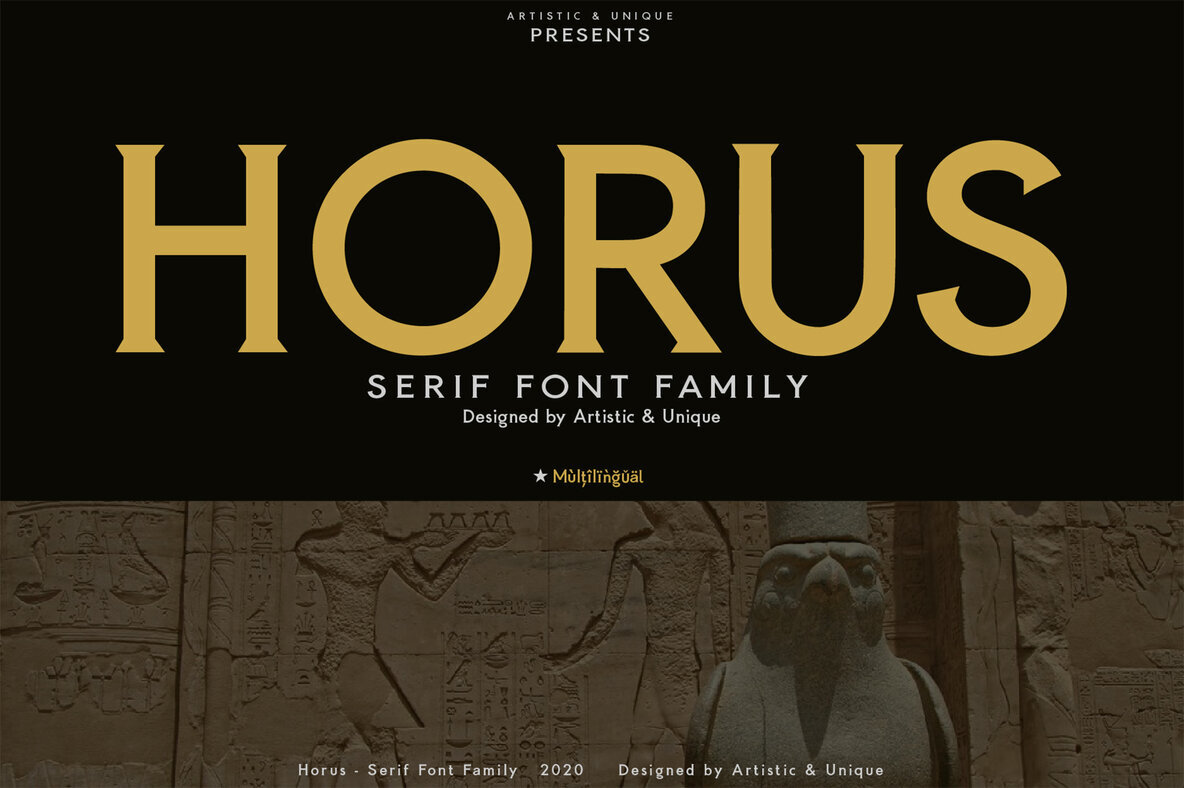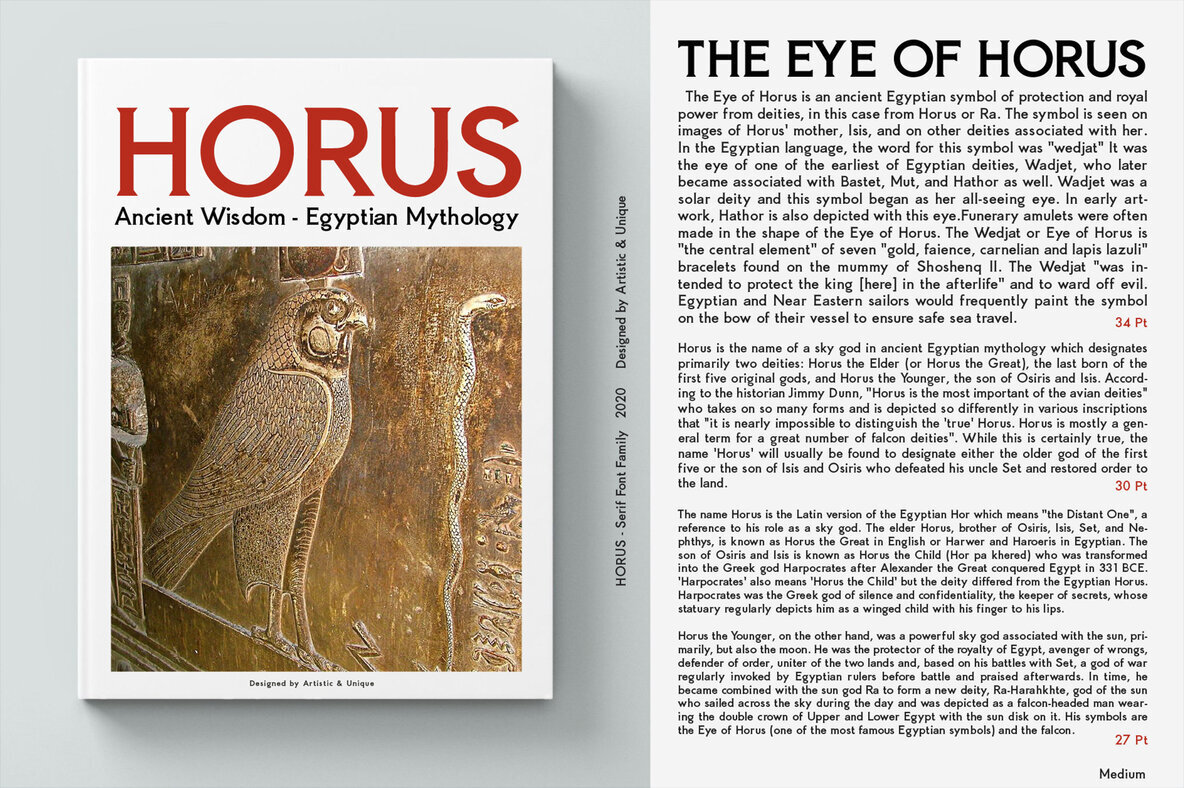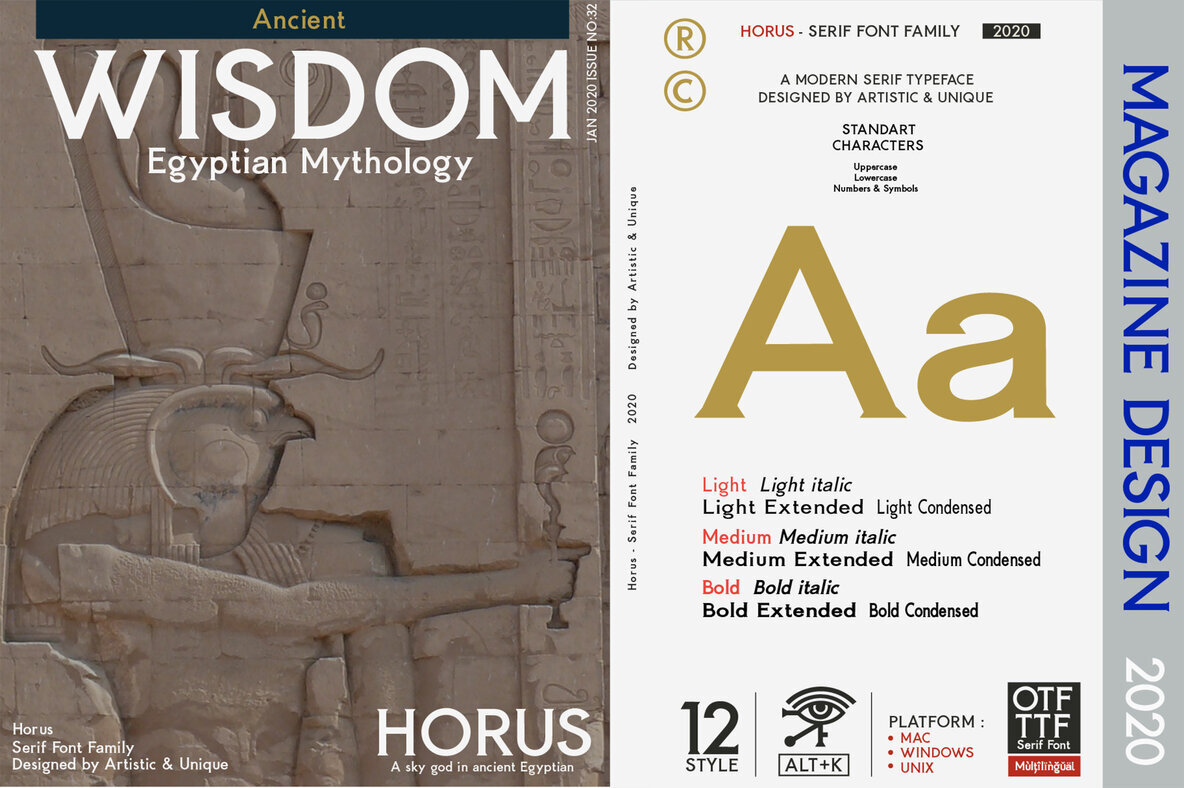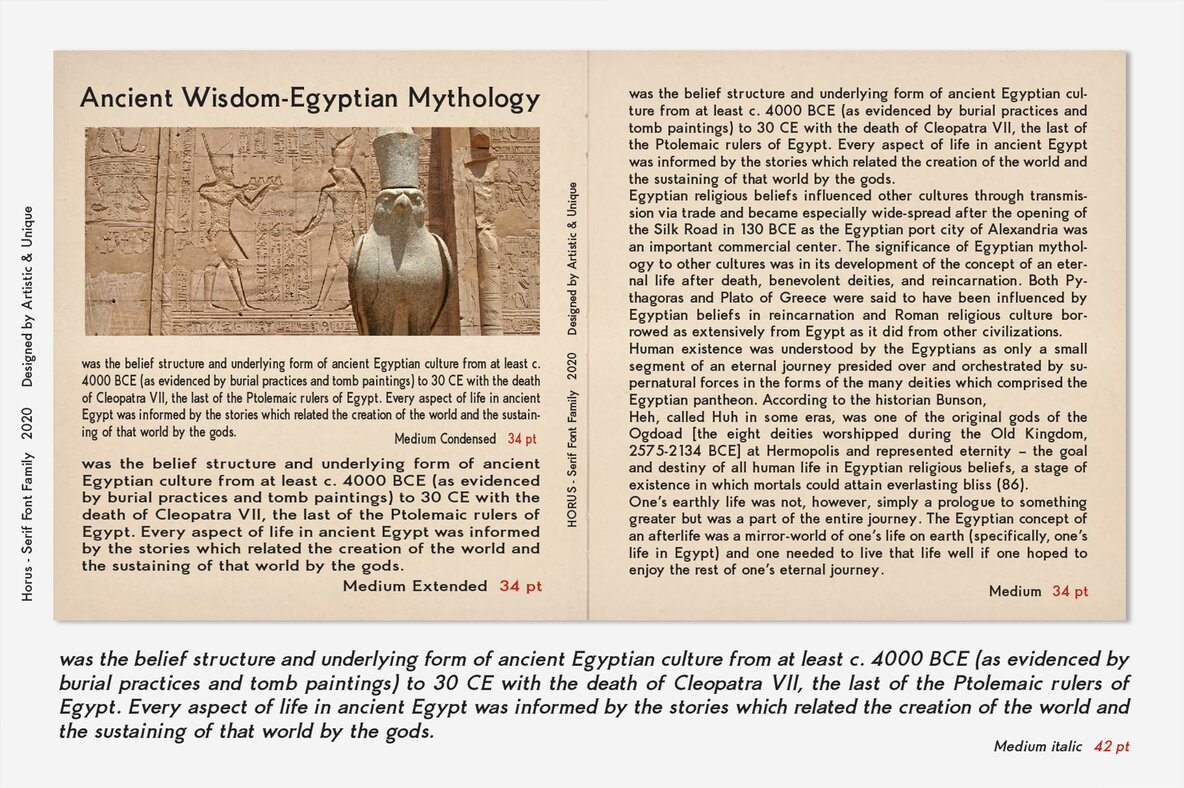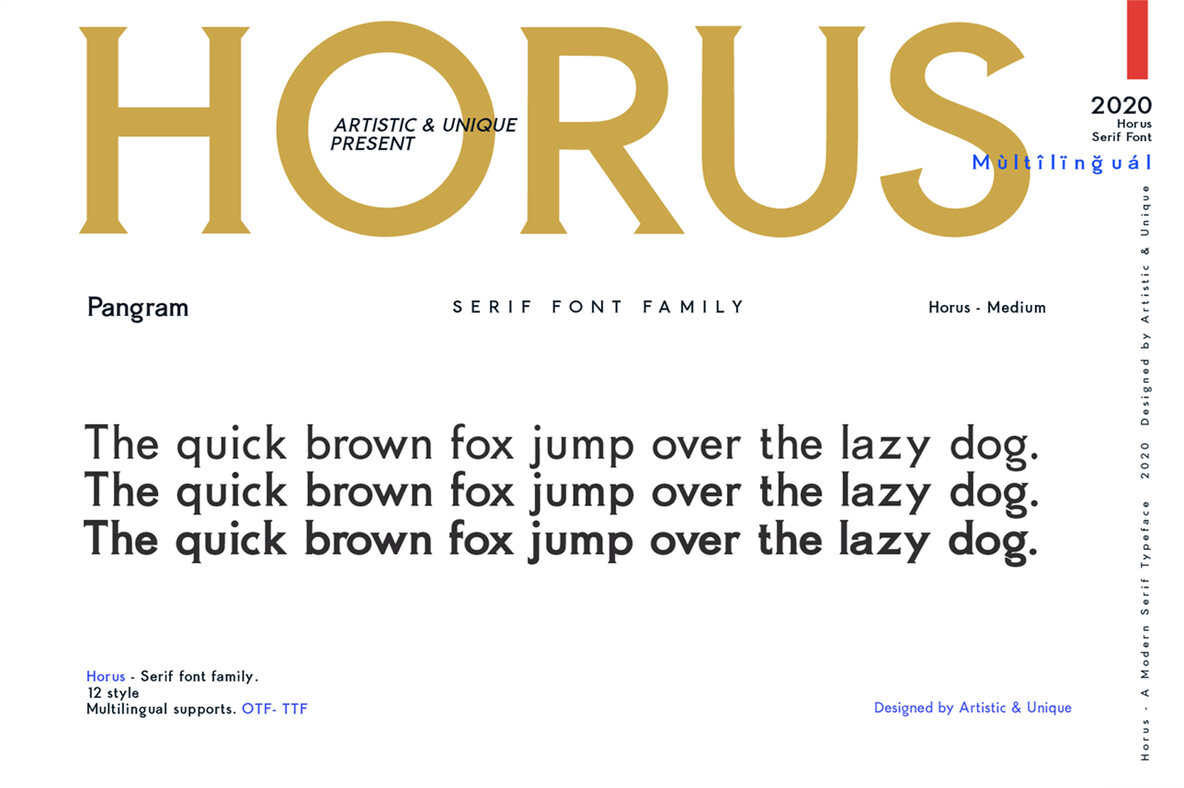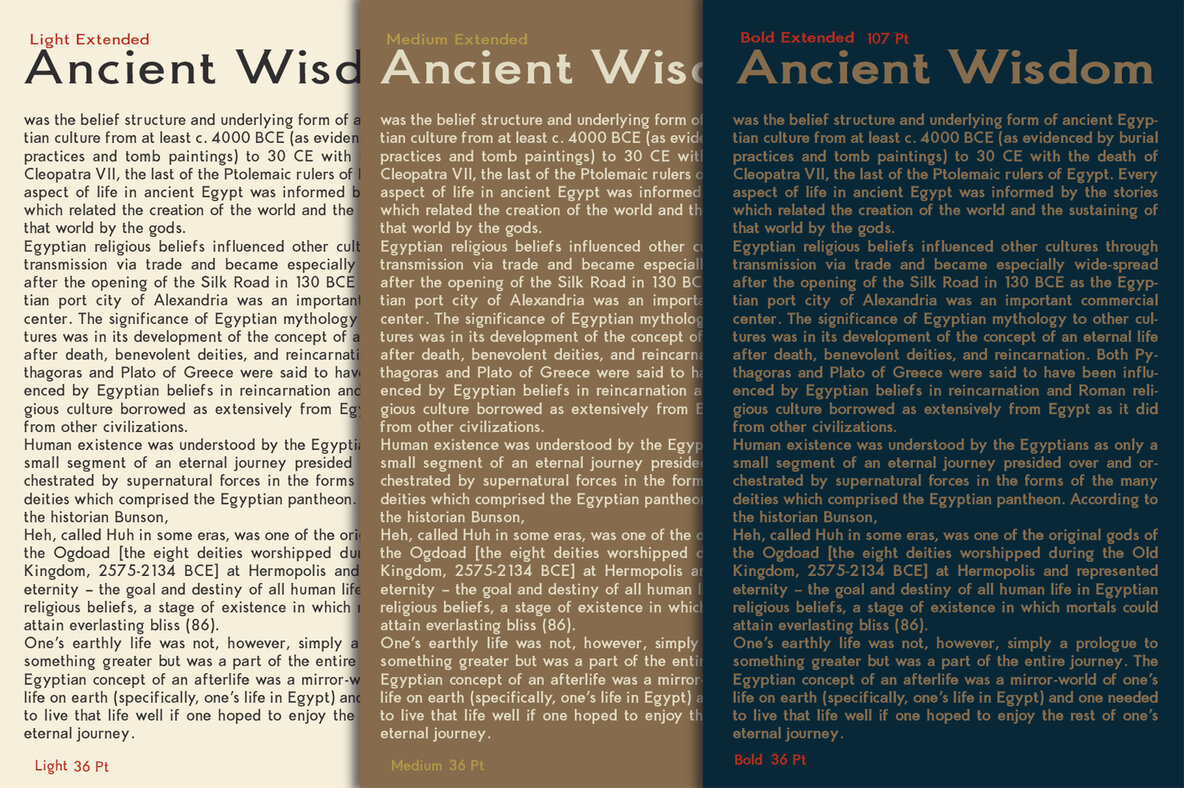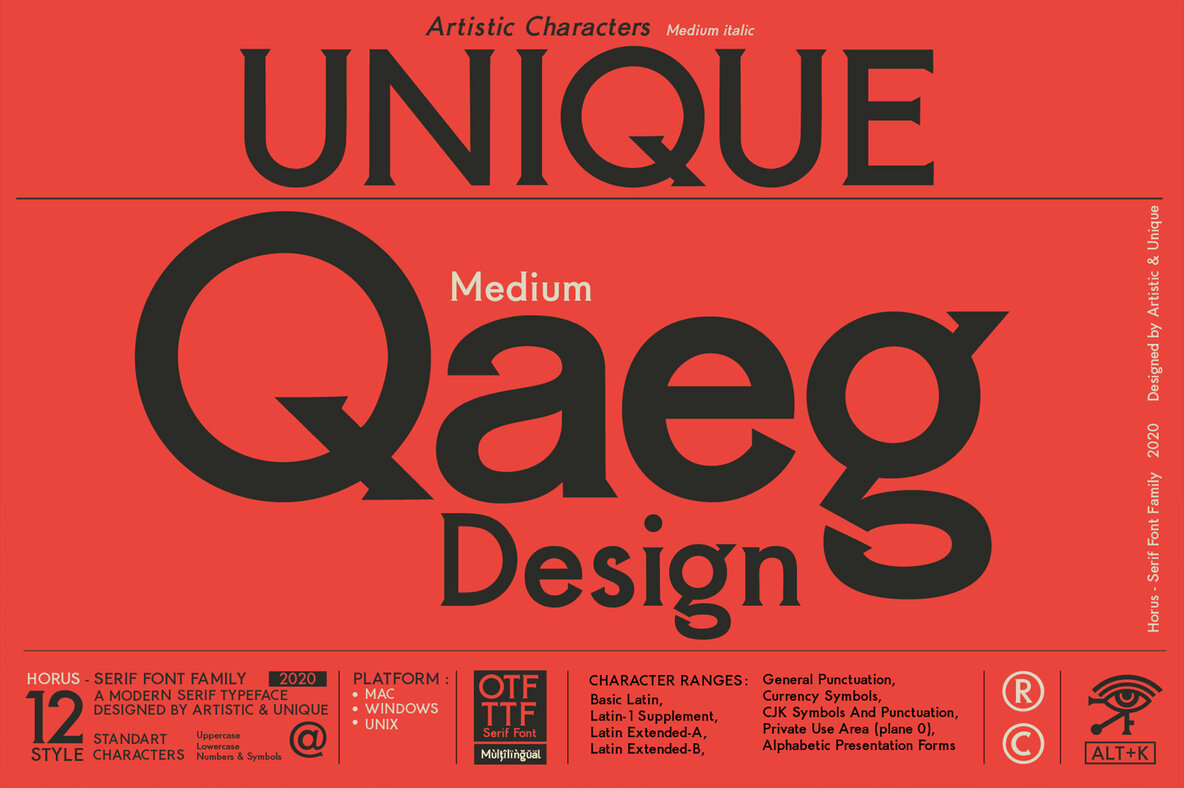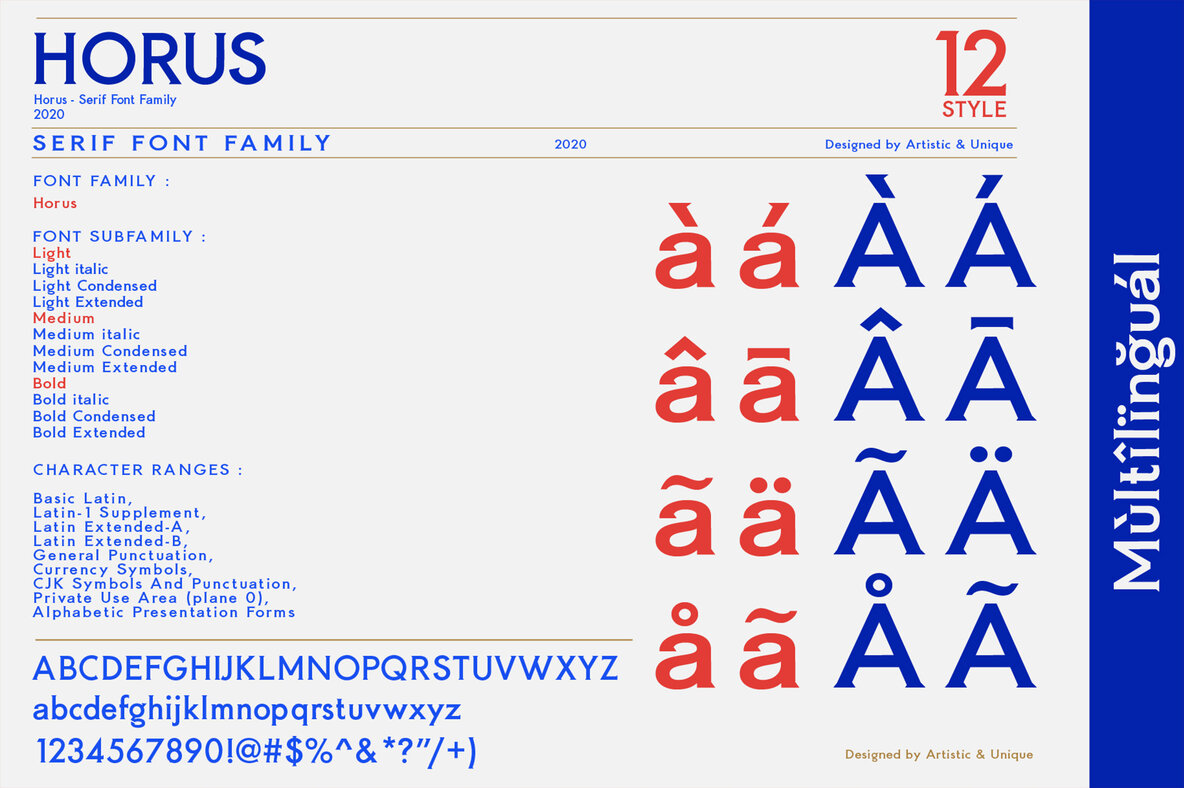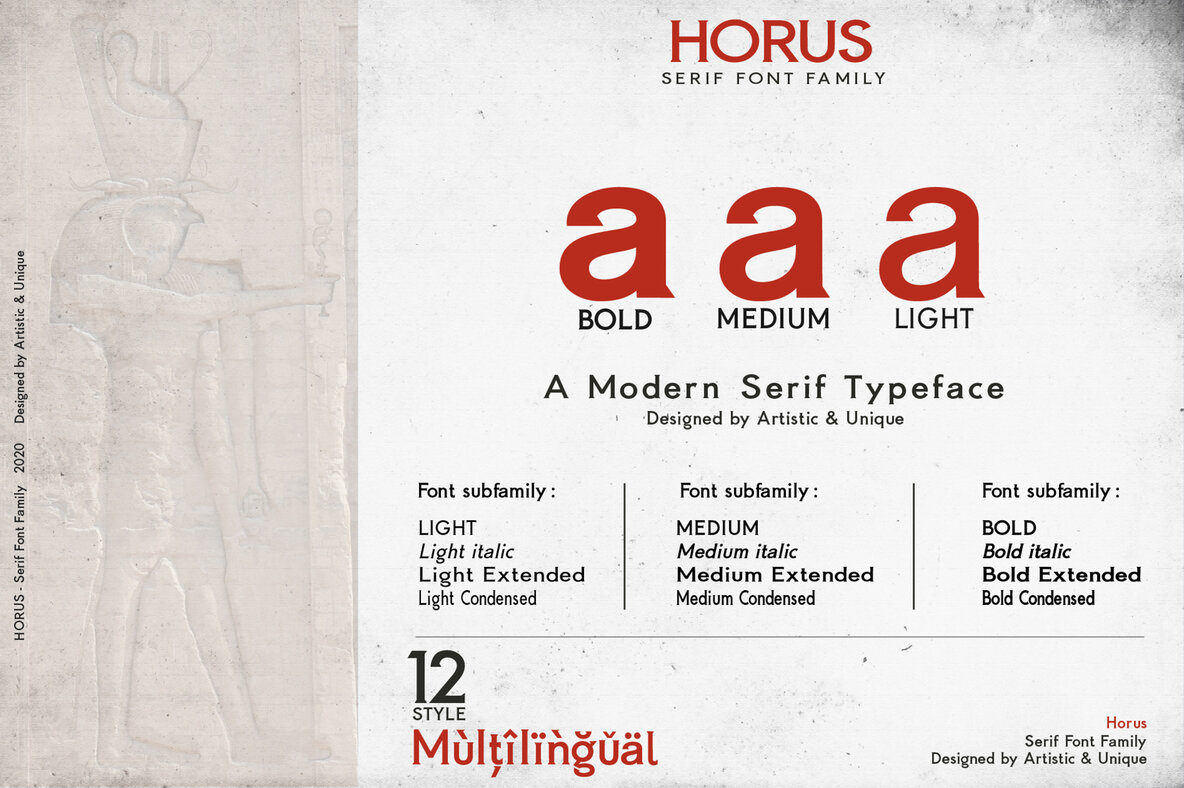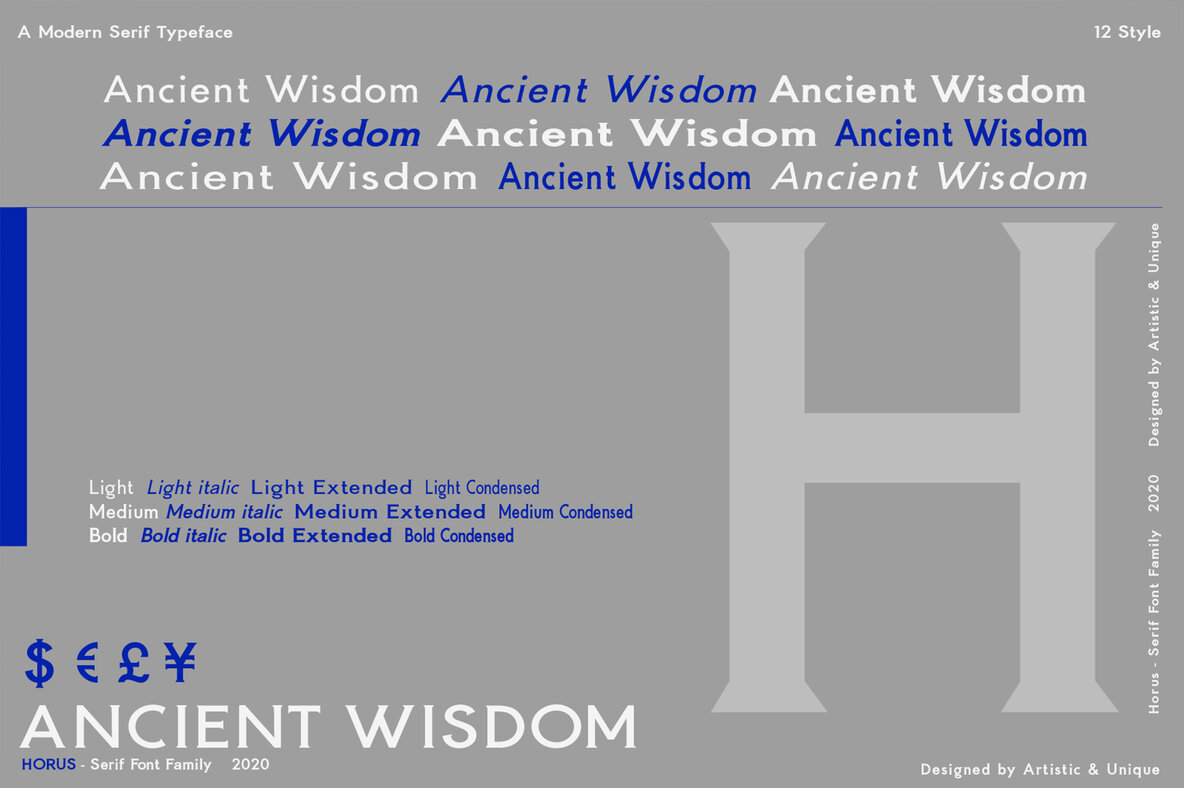
Horus Font
Inspired by the timeless elegance of Ancient Egypt and the artistry of stone carving inscriptions, Horus is a modern serif font family offering versatility for a wide range of design projects. Designed with a contemporary serif concept, Horus seamlessly blends classic styles with modern boldness, enhancing both body text and large titles. With Horus, add a unique touch to your designs, making them stand out across diverse mediums.Horus Serif Font Family
Features and Uses